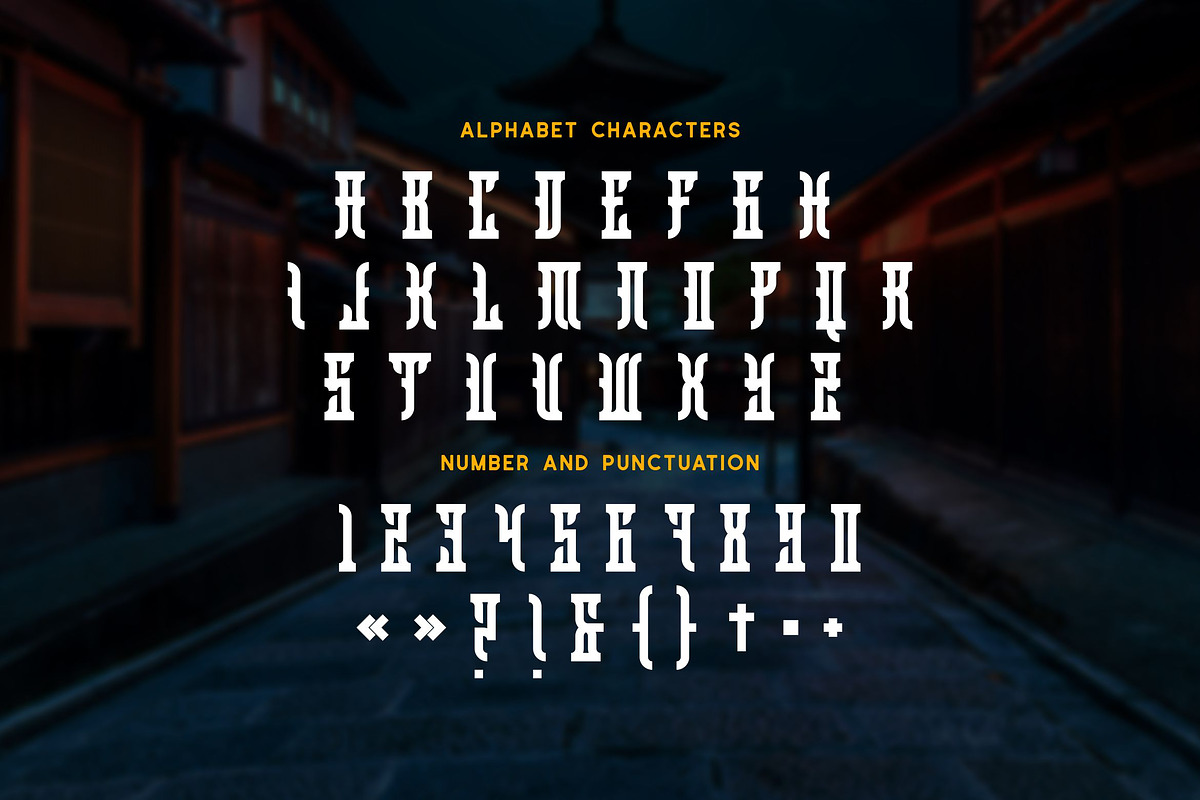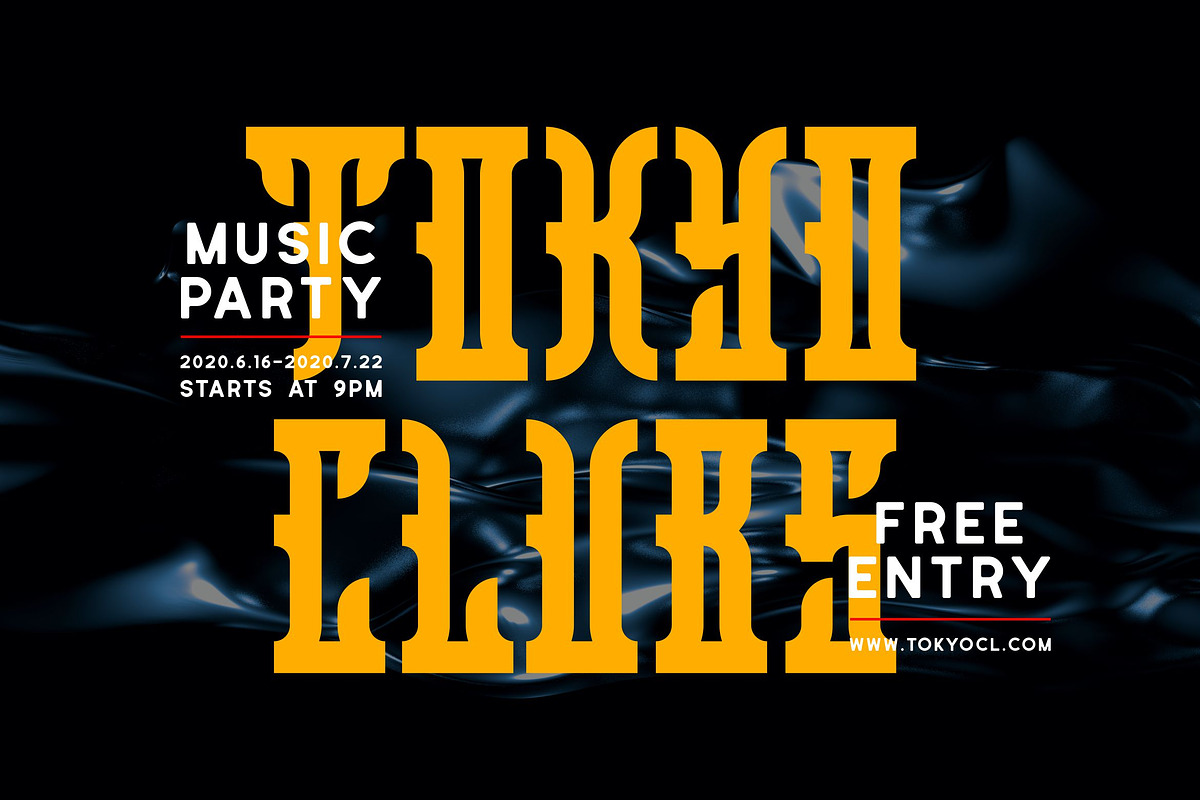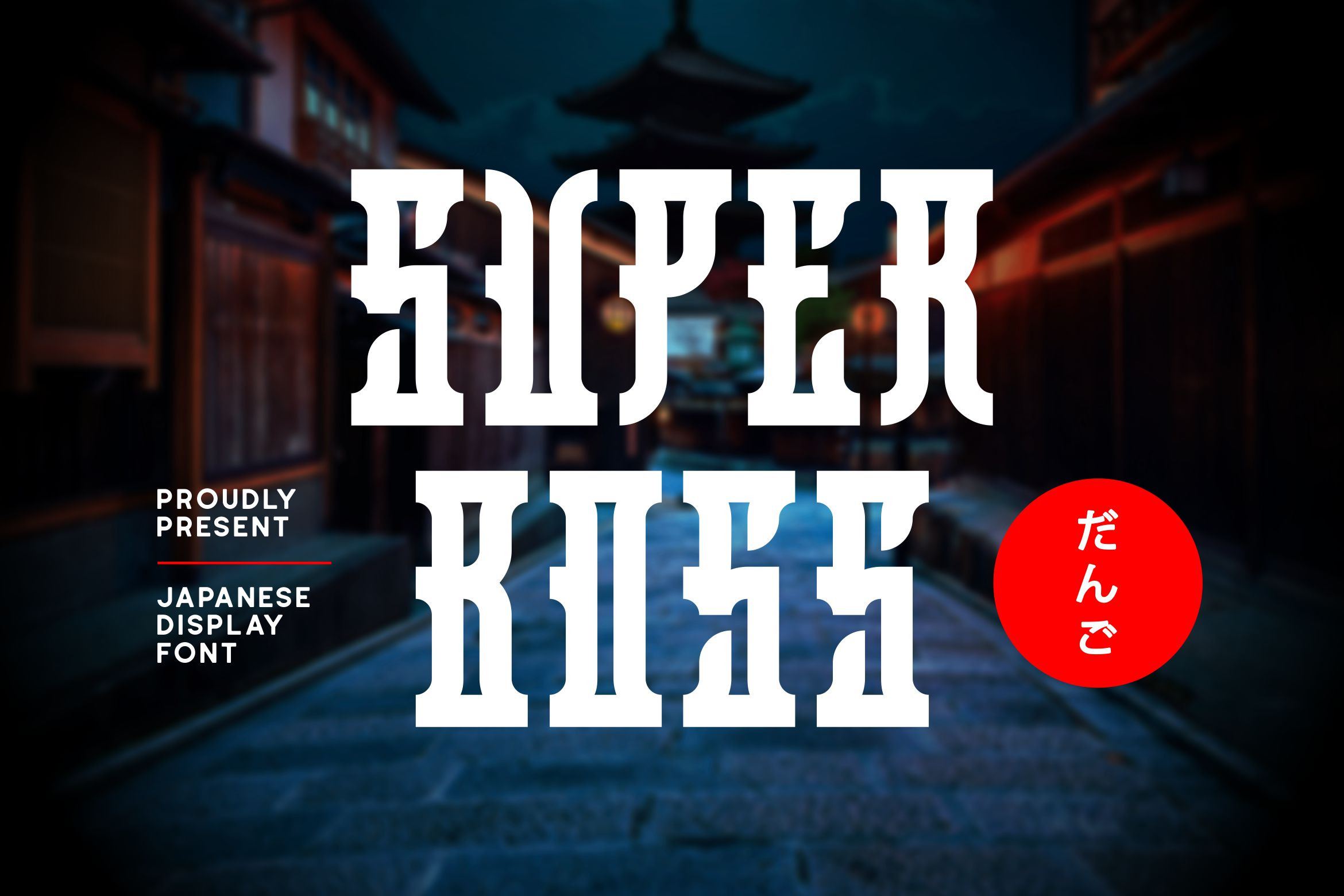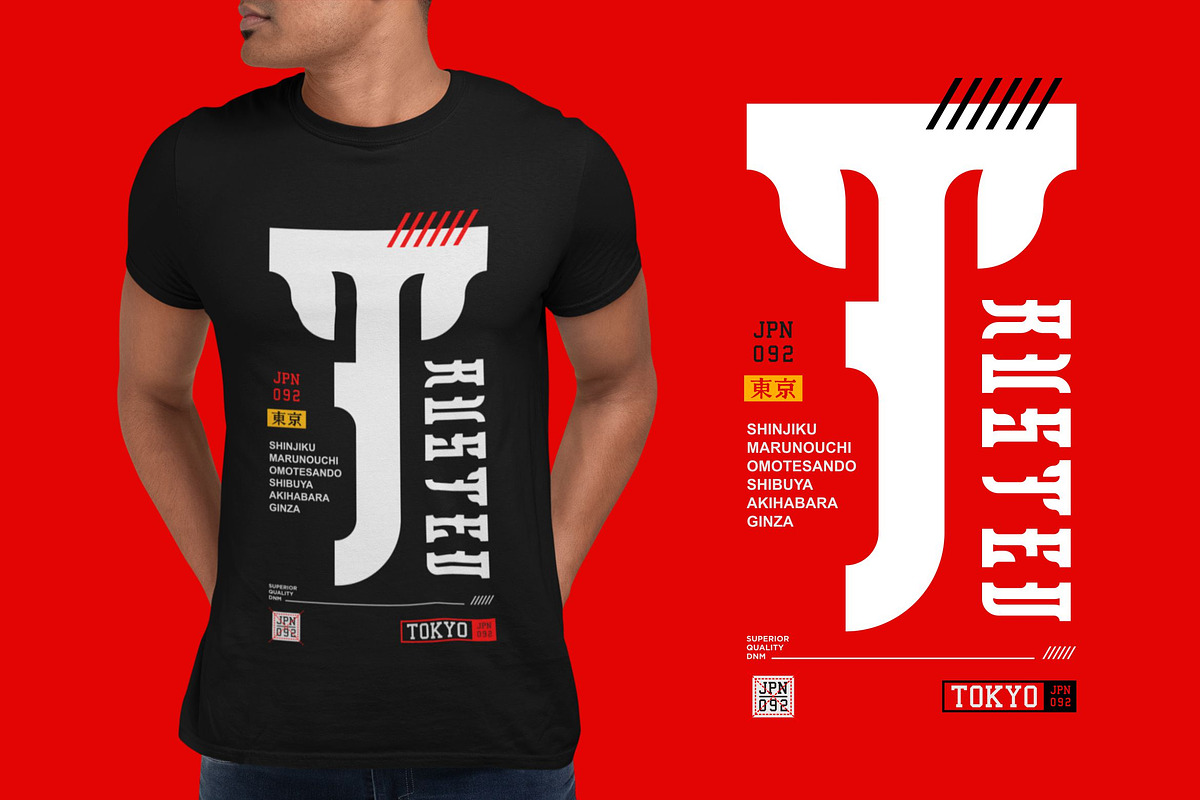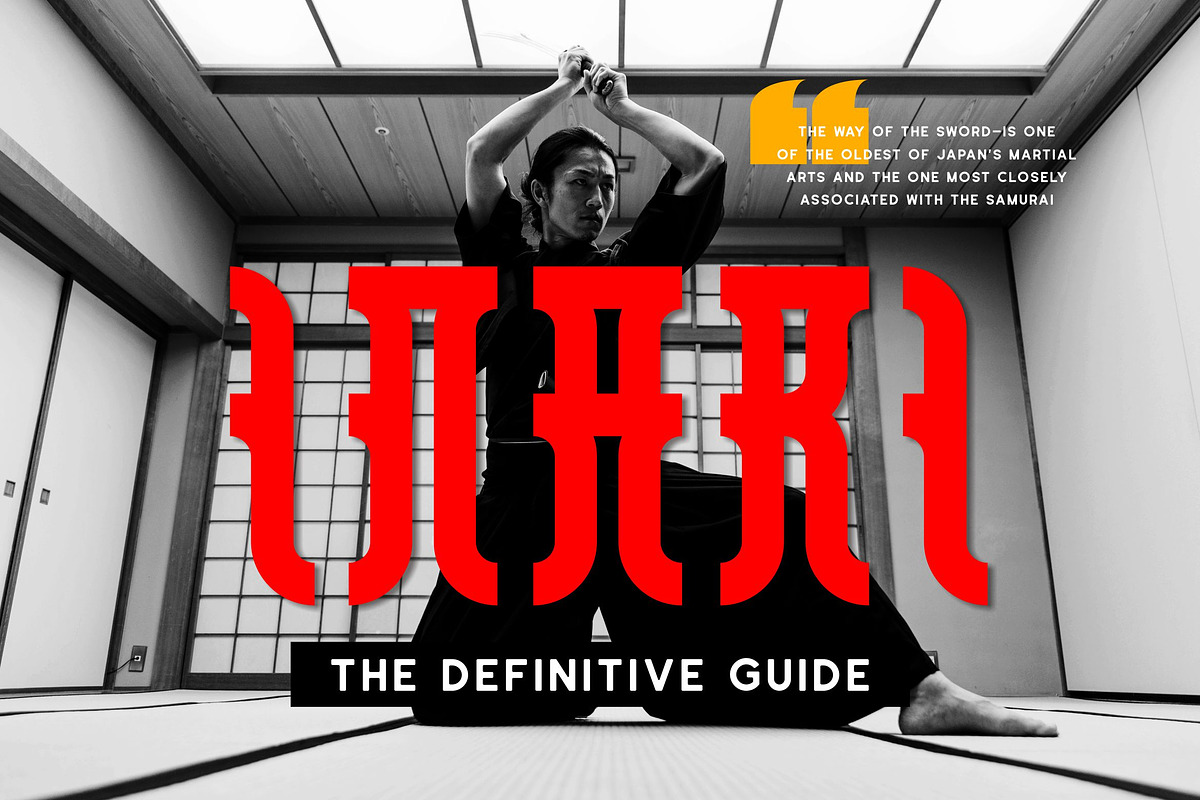
SUPPERBOSS Font
Font product Suitable for T-shirt designs, Crafts, Posters, Illustrations, Books, Packaging, Logos, Mugs, Games, Web, Wall Art or other design works.